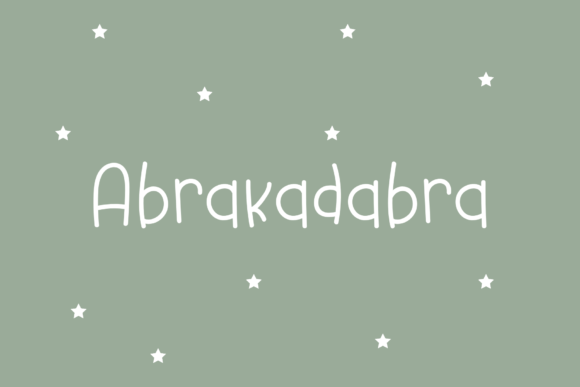
Add a Touch of Whimsy to Your Designs
Have you ever been brainstorming ideas for a new project, and suddenly a spark of creativity hits you? Maybe it’s the perfect phrase, a charming color palette, or a unique font that brings everything together. For me, that spark often comes in the form of a cute and playful font that adds an extra layer of charm to my designs.
That’s where the Abrakadabra Font comes in – a delightful, whimsical font that’s perfect for adding a touch of magic to your projects. Whether you’re creating greeting cards, invitations, social media graphics, or branding materials, this font will bring a playful energy to your work. As a designer, you’ll love the Abrakadabra Font for its versatility and ability to elevate even the simplest designs into something truly special.
Abrakadabra Font Key Features
- Font Style: Display Font, suitable for titles and headings
- Character Count: 250+ glyphs, including Latin, Cyrillic, and special characters
- Resolution: Scalable to any resolution, suitable for print and digital media
- Unique Characteristics: Distinctive, hand-drawn design with a touch of mysticism and magic
Abrakadabra Font Review
Overall, I’m quite impressed with the Abrakadabra Font. Here are the things that stand out to me:
- ✨ Unique and playful design: The font has a magical, whimsical feel that’s perfect for creative projects, like children’s books or fantasy novels.
- ✨ High-quality glyphs: The font includes a wide range of glyphs, including ligatures, swashes, and alternates, which makes it a great choice for designers who want to add some flair to their typography.
- ✨ Versatile: Abrakadabra Font works well in both digital and print applications, making it a great choice for designers who need to adapt their designs for different mediums.
- ⚠️ Limited font weights: The font only comes in a few weights, which might make it less suitable for designs that require a lot of contrast or emphasis.
- ⚠️ Not ideal for body text: While the font is great for headlines and titles, it might be a bit too ornate for body text, which could make it difficult to read.
Overall, I think the Abrakadabra Font is a great choice for designers who want to add a touch of magic to their projects. Just be mindful of its limitations and use it thoughtfully.
The Abrakadabra font is perfect for designs that require a touch of magic and whimsy, such as:
- Fantasy-themed posters and book covers
- Mystical and spiritual designs
- Children’s book illustrations and manuscripts
- Whimsical and dreamlike designs